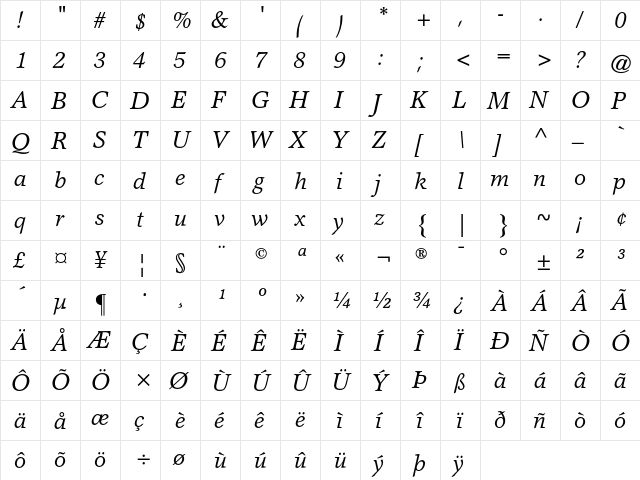
Garth Graphic Italic
Design Context for Garth Graphic Typeface
Garth Graphic takes a measured approach to typography — its balanced proportions and neutral character make it a reliable workhorse for both digital and print work. The slanted form adds forward momentum and visual energy.
Pro Tip: Try Garth Graphic for annotation and caption copy alongside an upright companion — the contrast in angle creates a dynamic but ordered typographic system.